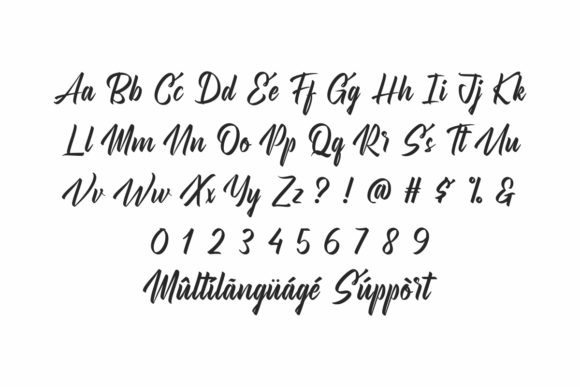
Introducing Fairleaders Font: Elevate Your Designs with a Classic and Flowing Handwritten Style
In the world of typography, few fonts manage to capture the essence of elegance and creativity as effectively as Fairleaders. This classic and flowing handwritten font has been designed to bring a touch of sophistication and flair to your most innovative ideas. With its PUA encoding, Fairleaders offers an unparalleled level of versatility, making it an indispensable tool for designers, artists, and anyone looking to add a personal touch to their projects.
The Charm of Fairleaders Font
Fairleaders is more than just a font; it’s an experience. Its handwritten style exudes warmth, character, and a sense of approachability that is hard to find in digital typography. Each letter, carefully crafted with precision and passion, flows seamlessly into the next, creating a fluid and natural look that captures the eye and holds the attention.
PUA Encoding: Unlocking Creative Potential
One of the standout features of Fairleaders is its PUA (Private Use Area) encoding. This means that the font includes a wide range of glyphs and swashes that can be easily accessed and used to enhance your designs. PUA encoding allows for a level of customization and creativity that is unparalleled in font design. With Fairleaders, you can effortlessly incorporate intricate details, flourishes, and stylistic alternates into your work, elevating it from ordinary to extraordinary.
Advantages of PUA Encoding:
- Ease of Use: Access a vast array of glyphs and swashes with ease, allowing for a more streamlined design process.
- Enhanced Creativity: The extensive range of characters and flourishes gives you the tools to experiment and innovate, pushing the boundaries of what’s possible in your designs.
- Consistency: Maintain a consistent aesthetic across your project, with the ability to seamlessly integrate various elements of the font.
Bringing Your Ideas to Life with Fairleaders
Whether you’re working on a branding project, crafting a unique logo, designing an eye-catching poster, or simply looking to add a personal touch to your digital content, Fairleaders is the perfect companion. Its versatility and charm make it suitable for a wide range of applications, from elegant and sophisticated to playful and whimsical.
Ideal Uses for Fairleaders Font:
- Branding and Logos: Create a memorable and impactful brand identity with a logo that stands out.
- Posters and Flyers: Add a touch of elegance and professionalism to your promotional materials.
- Digital Content: Enhance your blog posts, social media graphics, and website with a distinctive and engaging typography.
- Packaging: Elevate your product packaging with a font that communicates quality and style.
Tips for Maximizing Fairleaders’ Potential:
- Experiment: Don’t be afraid to try out different glyphs, swashes, and combinations to find what works best for your project.
- Mix and Match: Combine Fairleaders with other fonts to create a unique contrast and add depth to your designs.
- Pay Attention to Details: The subtle flourishes and details in Fairleaders can make a big difference. Use them to guide the viewer’s eye and enhance the overall composition.
Fairleaders font offers a unique blend of classic elegance and creative freedom, making it an invaluable asset for anyone looking to elevate their design work. With its flowing handwritten style and PUA encoding, Fairleaders provides the tools to bring your most ambitious projects to life. Whether you’re a seasoned designer or just starting out, Fairleaders invites you to explore new possibilities in typography and design.